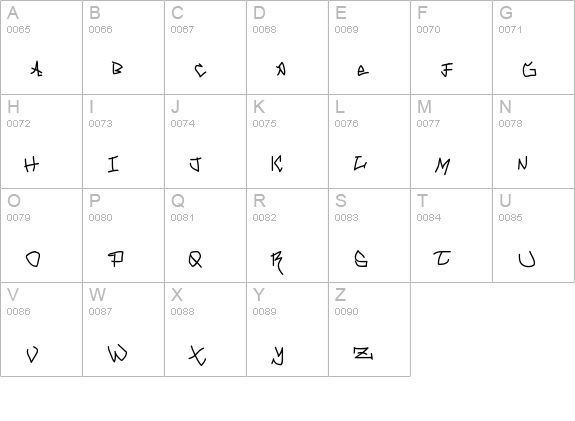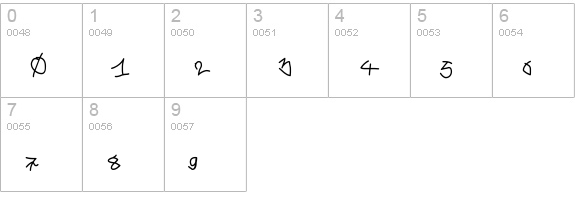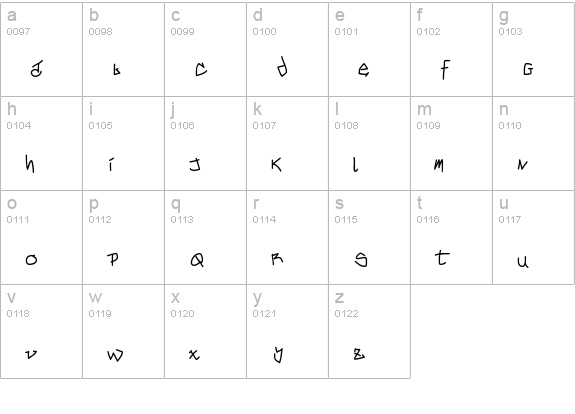
MouseGrafitty Font Details
Introducing MouseGrafitty font, a whimsical and playful typeface that adds a touch of creativity to any design project. This unique font features quirky hand-drawn letters with a graffiti-inspired style, perfect for adding a fun and casual vibe to your designs. MouseGrafitty font is freely available to download at FontsMarket.com, allowing you to easily incorporate this charming typeface into your projects without any cost. Whether you're working on posters, logos, invitations, or social media graphics, MouseGrafitty font is sure to capture attention and make your designs stand out. With its bold and energetic appearance, MouseGrafitty font is versatile and can be used for a wide range of design applications. Let your creativity run wild with this free and dynamic font that brings a touch of urban flair to your projects. Download MouseGrafitty font today and add a splash of personality to your designs!